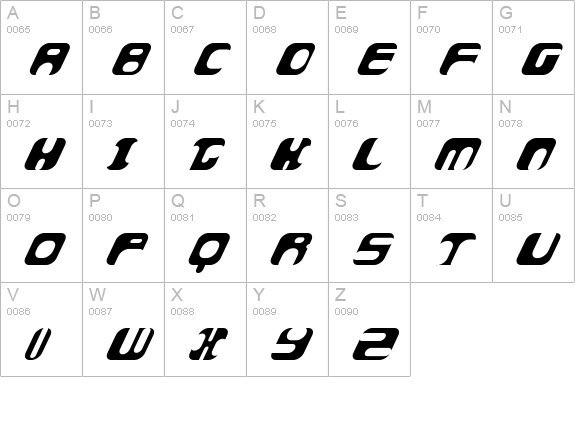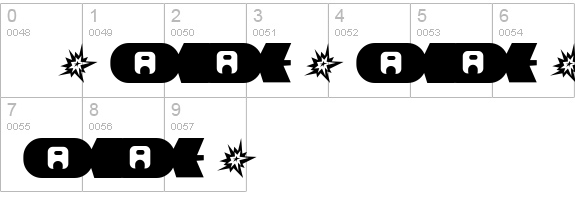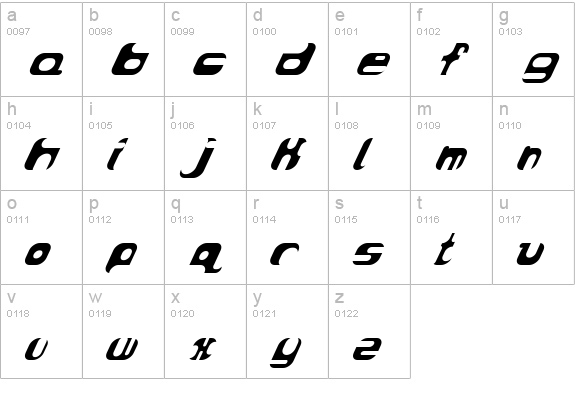
AtomBomb Speedster Font Details
Introducing AtomBomb Speedster font, a dynamic and energetic typeface designed to make your projects stand out. With its bold and sleek design, this font exudes a sense of speed and power, making it perfect for sports-related designs, branding, and advertising materials. AtomBomb Speedster font features sharp, angular lines and a modern aesthetic that will instantly grab the attention of your audience. The best part about AtomBomb Speedster font is that it is completely free to download at FontsMarket.com. This means you can easily add this exciting font to your collection without any cost, allowing you to unleash your creativity without any limitations. Whether you're working on a poster, website, or logo design, AtomBomb Speedster font will inject a dose of energy and style into your project. Don't miss the opportunity to enhance your designs with AtomBomb Speedster font - download it for free today at FontsMarket.com and take your creative projects to the next level!